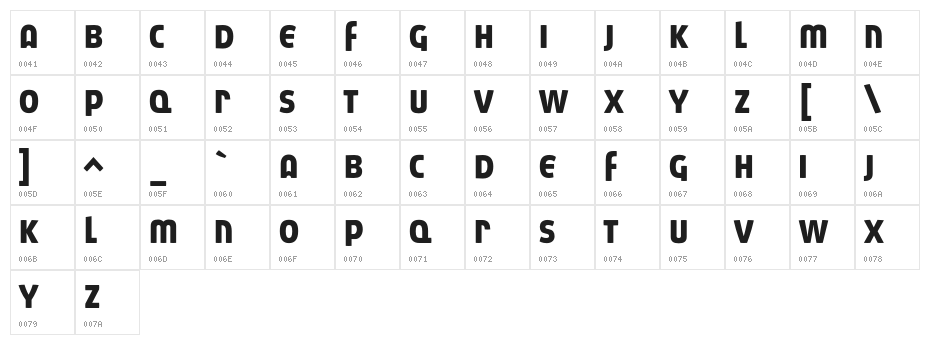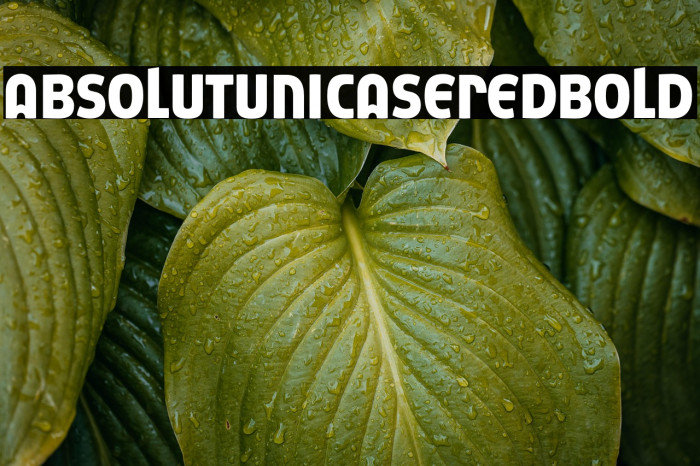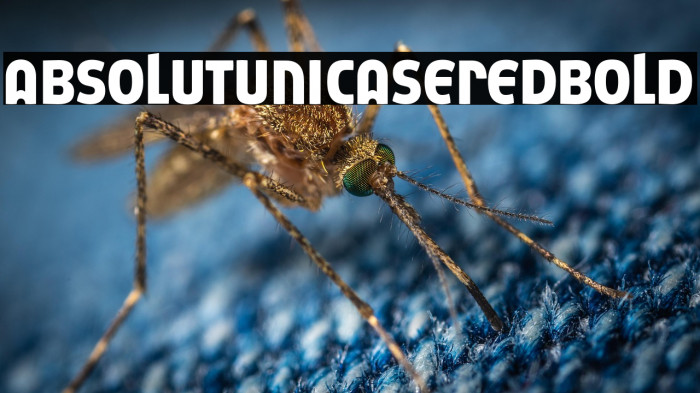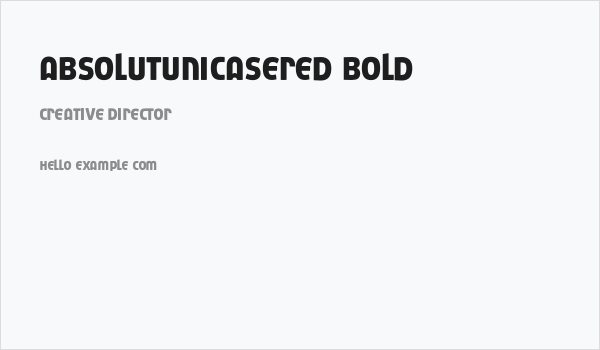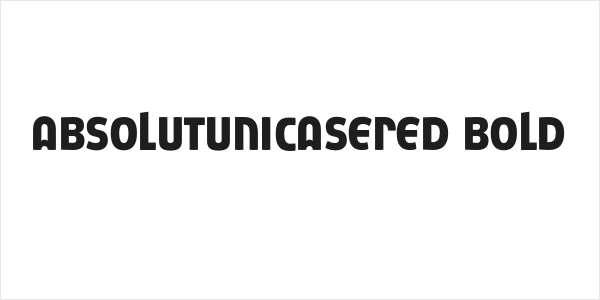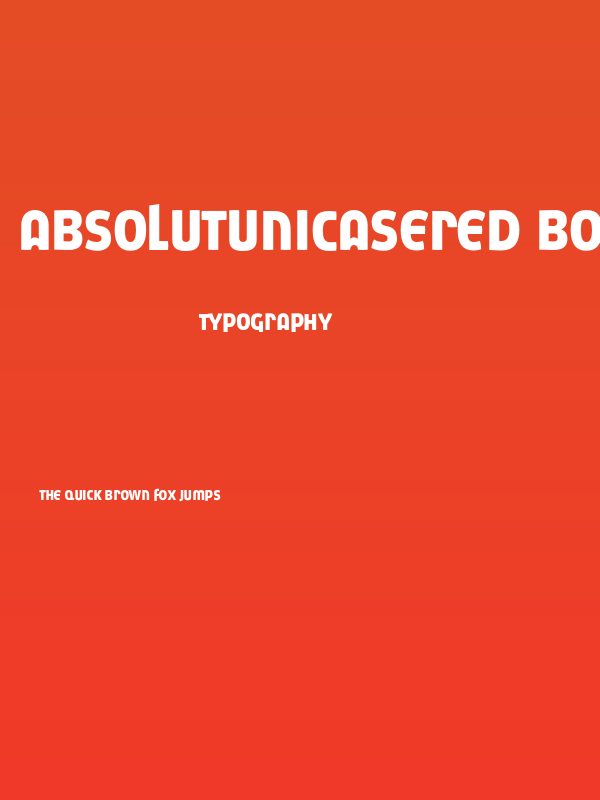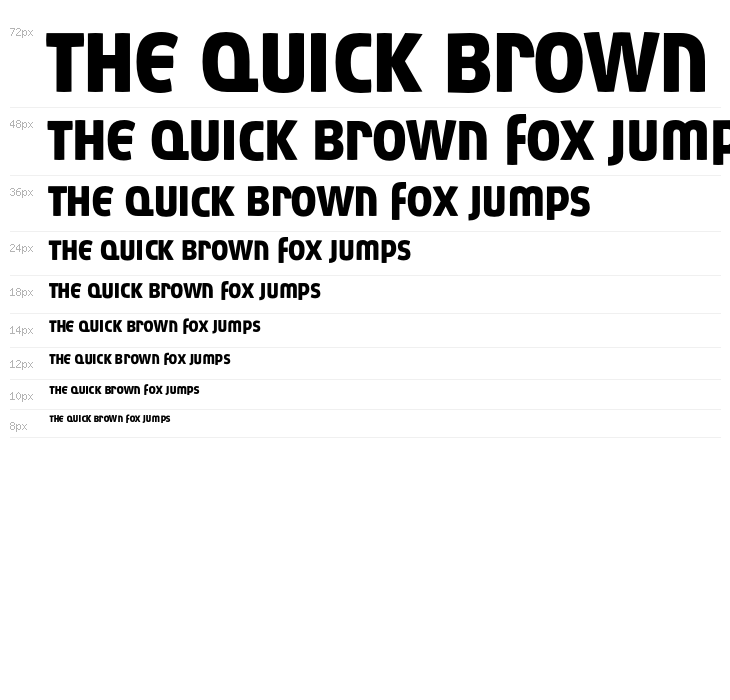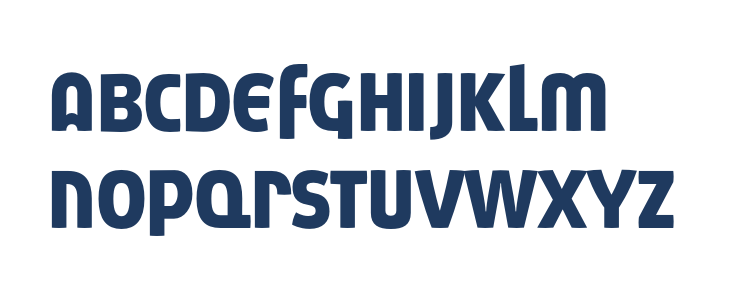
AbsolutUnicaseRed-Bold Font
AbsolutUnicaseRed-Bold Description
This font features a bold and modern design with a unique unicase style, where uppercase and lowercase letters share the same height, creating a uniform and cohesive look. The characters are rounded and have a geometric feel, with consistent stroke widths that contribute to its bold appearance. The font's clean lines and smooth curves make it highly legible, while its contemporary style adds a touch of sophistication. The absence of serifs gives it a sleek and streamlined look, ideal for making a strong visual impact.
| Proposed Projects | Ideal for branding, advertising, headlines, and digital media where a strong, modern presence is desired. |